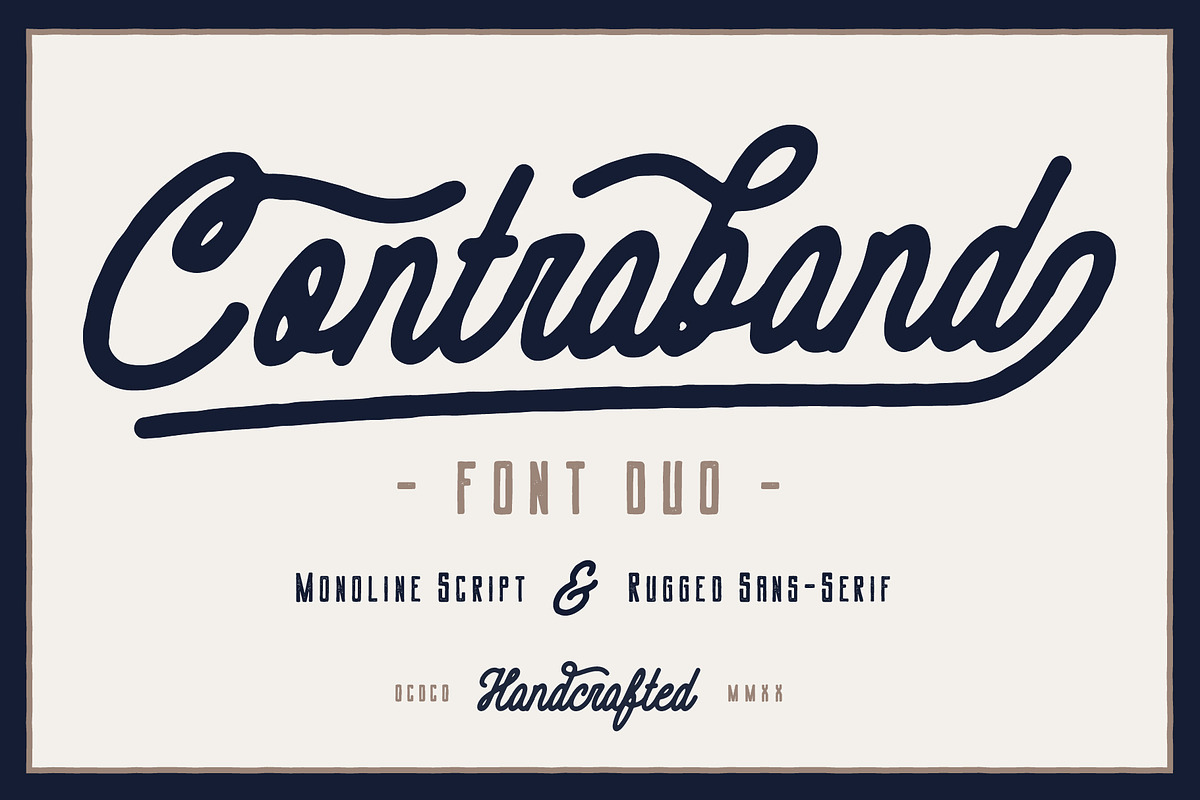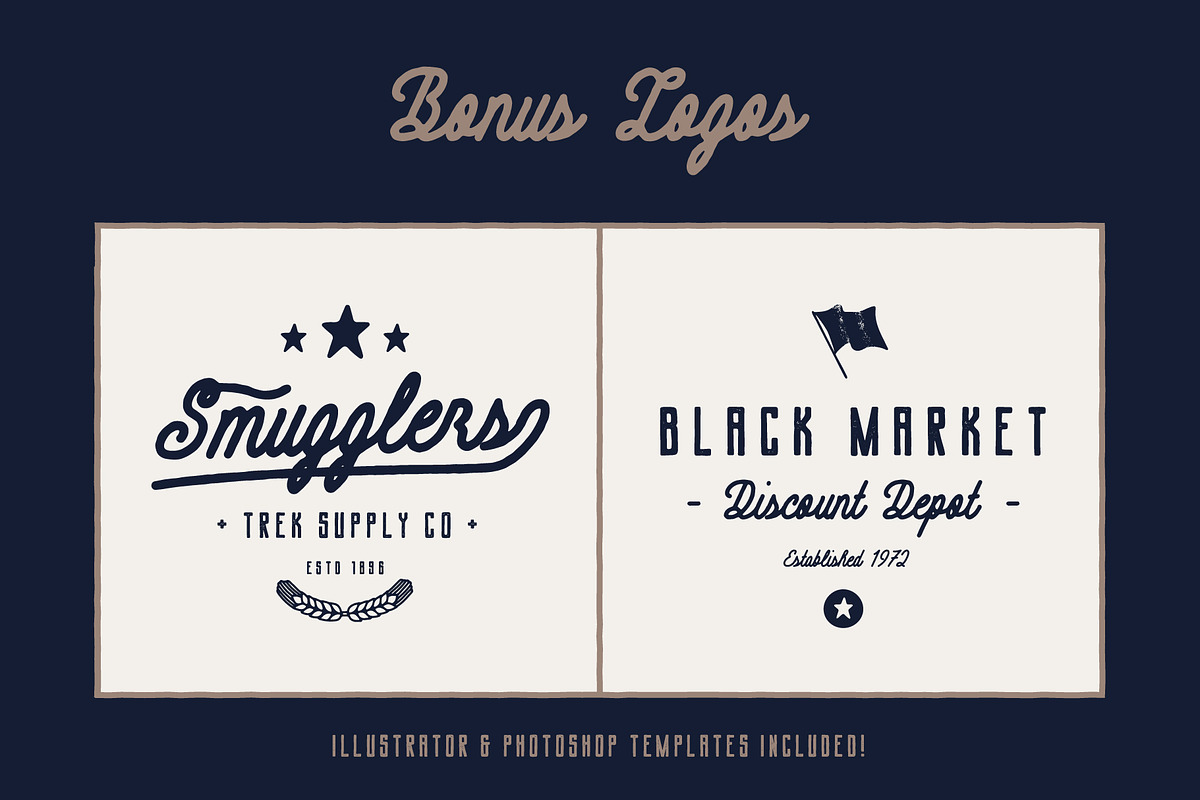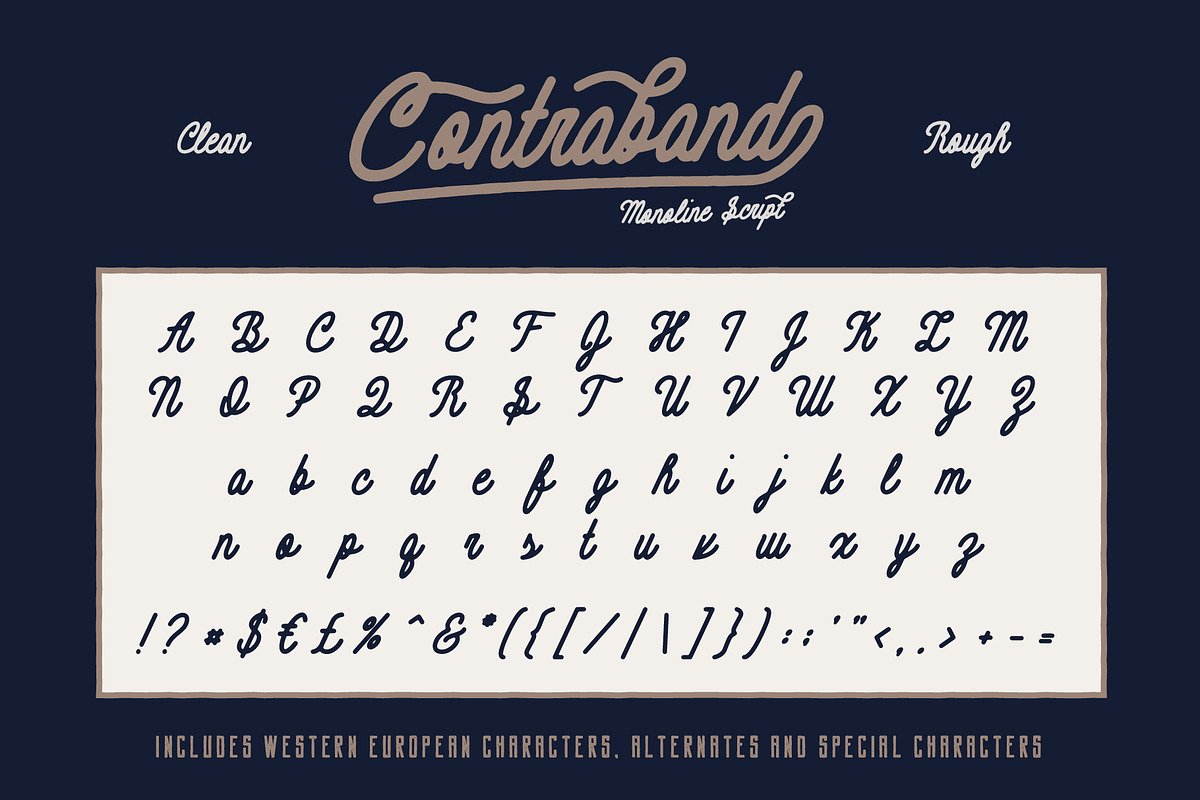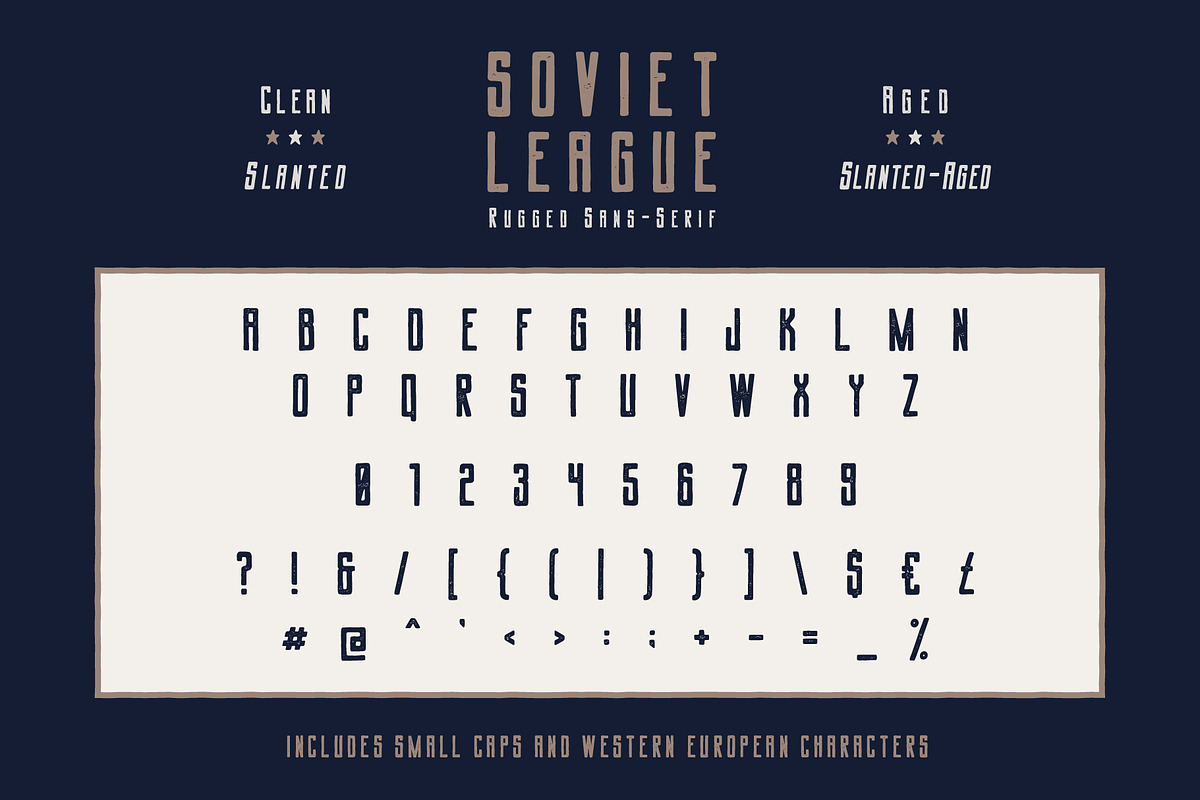
Contraband - Font Duo
This carefully handcrafted OCDCO product features two complementary font families: Contraband - Monoline Script (in 2 styles) + Soviet League - Rugged Sans-Serif (in 4 styles). These fonts are easy-to-use and will give your work a badass, hand-drawn quality.
- Contraband Clean
- Contraband Rough
- Soviet-League Slanted
- Soviet-League Aged
- Soviet-League Clean
- Soviet-League Slanted-Aged